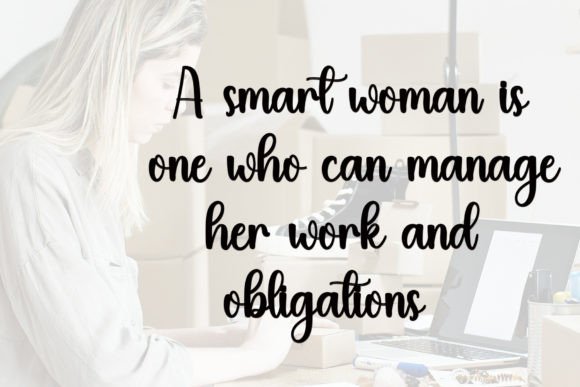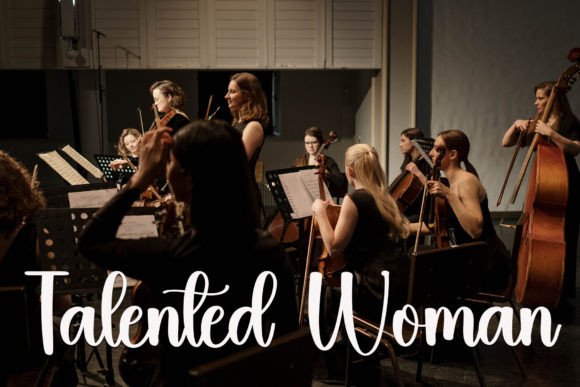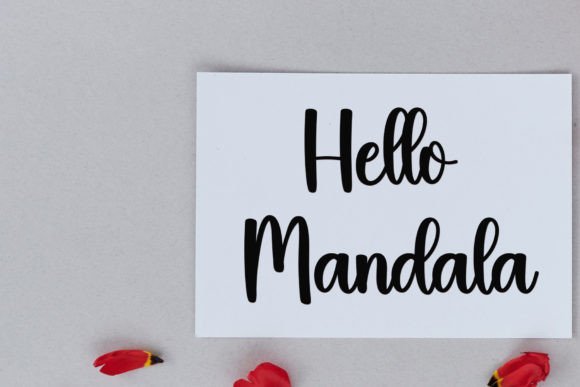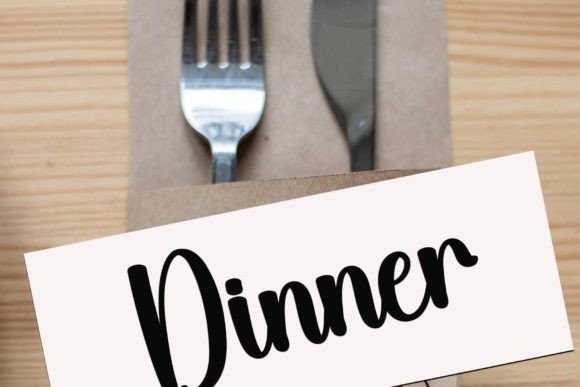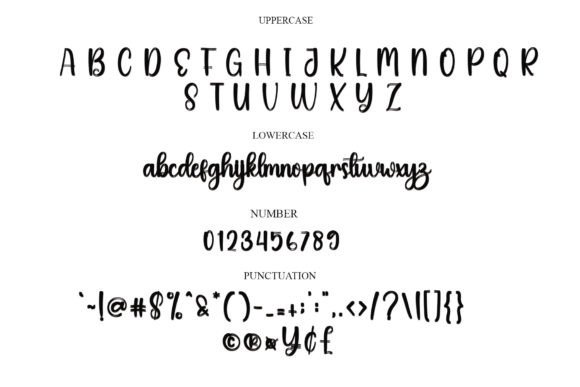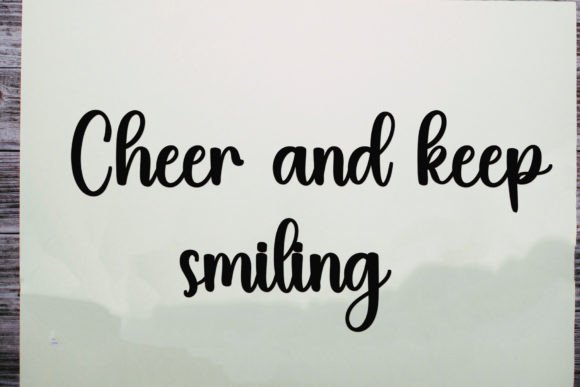
Girly Font: Elevate Your Designs with a Touch of Elegance
In the world of typography, fonts play a crucial role in conveying the tone and personality of a design. For those seeking a stylish and sophisticated look, the Girly font is an excellent choice. This stunning handwritten font boasts a contemporary atmosphere and impeccable form, inspired by timeless classic calligraphy. In this article, we’ll dive into the world of Girly font, exploring its features, benefits, and uses, perfect for designers and crafters looking to add a touch of elegance to their projects.
The Inspiration Behind Girly Font
Girly font draws inspiration from traditional calligraphy, with a modern twist. Its creator aimed to craft a font that exudes balance and variation, making it perfect for a wide range of design applications. The result is a beautiful, handwritten font that adds a touch of sophistication to any project. Whether you’re working on a logo, invitation, or social media graphic, Girly font is sure to impress.
Key Features of Girly Font
So, what makes Girly font so special? Here are some of its key features:
• Stylish Handwritten Design: Girly font boasts a beautiful, handwritten design that’s perfect for adding a personal touch to your projects.
• Contemporary Atmosphere: With its modern twist, Girly font is ideal for designers looking to create fresh and trendy designs.
• Impeccable Form: The font’s impeccable form ensures that it remains legible and easy to read, even at smaller sizes.
• Balanced and Varied: Girly font features a balanced and varied design, making it perfect for creating visually appealing text.
Benefits of Using Girly Font
So, why should you choose Girly font for your next project? Here are some benefits:
• Adds Elegance to Your Designs: Girly font adds a touch of sophistication and elegance to any design, making it perfect for high-end brands and luxury products.
• Perfect for Handmade and Crafting Projects: The font’s handmade look makes it ideal for crafting and DIY projects, such as handmade cards, invitations, and labels.
• Easy to Read and Legible: Girly font is designed to be easy to read, even at smaller sizes, making it perfect for body text and captions.
• Versatile and Flexible: The font’s versatility makes it suitable for a wide range of design applications, from logos and branding to social media graphics and more.
Using Girly Font in Your Designs
So, how can you incorporate Girly font into your designs? Here are some ideas:
• Logos and Branding: Use Girly font to create stunning logos and branding materials that exude elegance and sophistication.
• Invitations and Stationery: Add a touch of handmade charm to your invitations, cards, and stationery with Girly font.
• Social Media Graphics: Use Girly font to create eye-catching social media graphics that stand out from the crowd.
• Crafting and DIY Projects: Girly font is perfect for handmade crafting projects, such as knitting patterns, sewing tutorials, and more.
In conclusion, Girly font is a stunning handwritten font that adds a touch of elegance and sophistication to any design. With its contemporary atmosphere, impeccable form, and balanced design, it’s perfect for designers and crafters looking to create visually appealing text. Whether you’re working on a logo, invitation, or social media graphic, Girly font is sure to impress. So why not give it a try and elevate your designs to the next level?